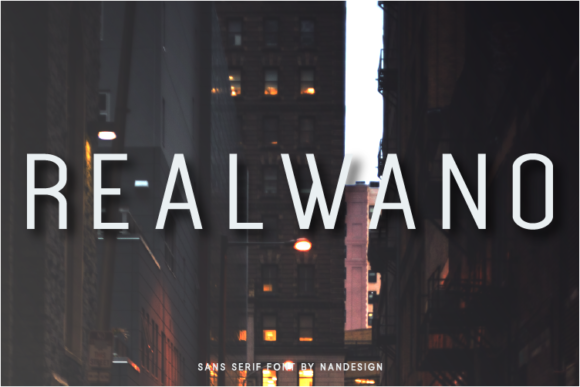
Welcome to the world of Realwano, a game-changing sans serif font family that bridges the boundaries between classic elegance and contemporary boldness. Crafted by the visionary minds at Nan Design, Realwano is a powerhouse of visual impact, ready to elevate your designs to new heights.
Realwano's clean and modern design exudes a timeless appeal that will resonate with your audience. Its sharp lines and carefully crafted letterforms create a striking visual presence that grabs attention and leaves a lasting impression. Whether you're crafting logos, branding elements, captivating social media graphics, or unleashing your creativity in DIY projects, Realwano is your ultimate design companion.
With Realwano in your font arsenal, you'll unlock a world of possibilities. Its versatility extends from formal business documents to playful personal projects, making it the perfect choice for a diverse range of design endeavors. Create awe-inspiring logos that exude professionalism and sophistication, craft social media posts that pop with energy and engagement, or design DIY projects that radiate creativity and personal flair.
Realwano's crisp, sans serif design ensures effortless readability, even in smaller font sizes. Its clear character shapes and optimal letter spacing deliver crystal-clear communication, making it an ideal choice for body copy, headlines, and other text-heavy design elements. Your audience will appreciate the visual clarity and ease of reading, allowing your message to shine through and connect with your readers on a deeper level.
Beyond its aesthetic appeal and practical functionality, Realwano evokes emotions that connect with your audience on a personal level. Its clean lines and modern design create a sense of order and tranquility, while its bold character shapes convey a sense of confidence and strength. Whether you're crafting designs for a high-end brand or creating personal projects that reflect your unique style, Realwano's emotional impact will leave a lasting impression.